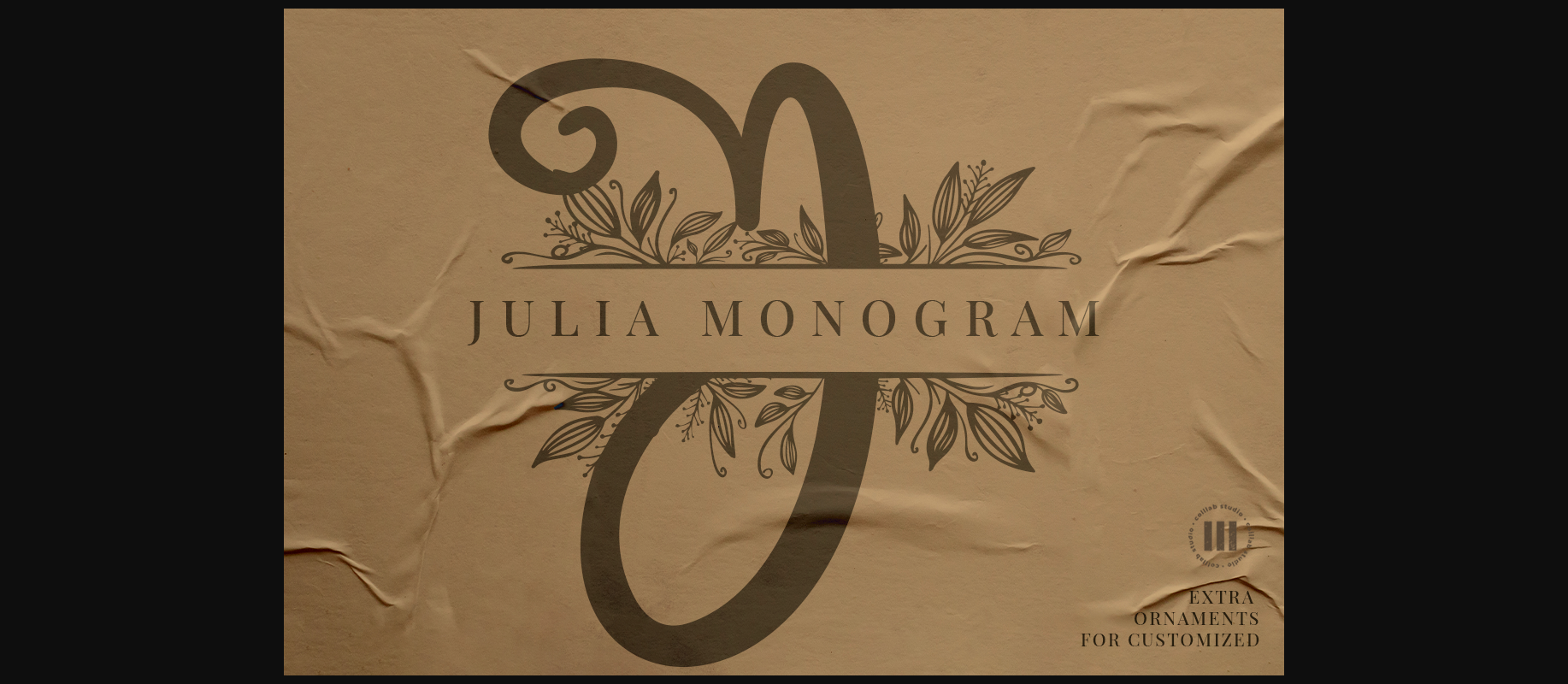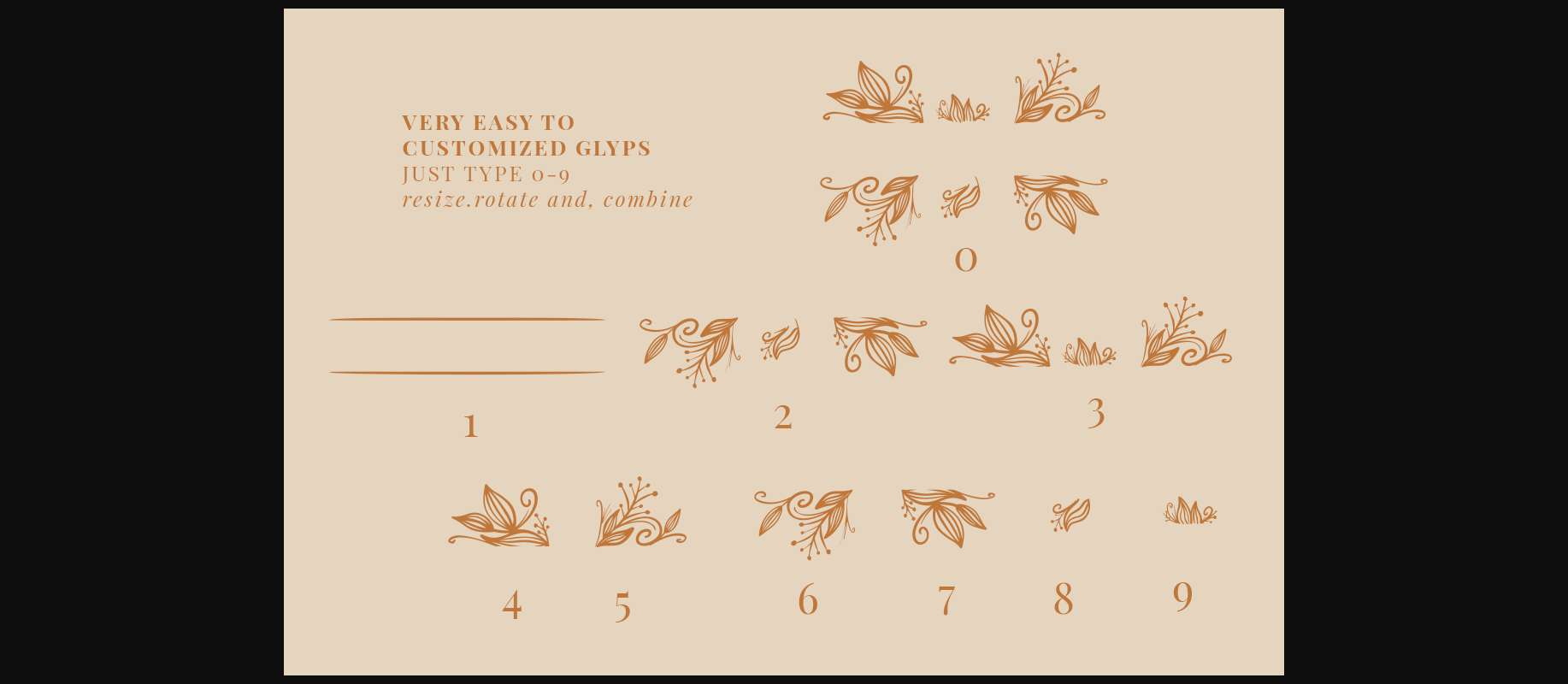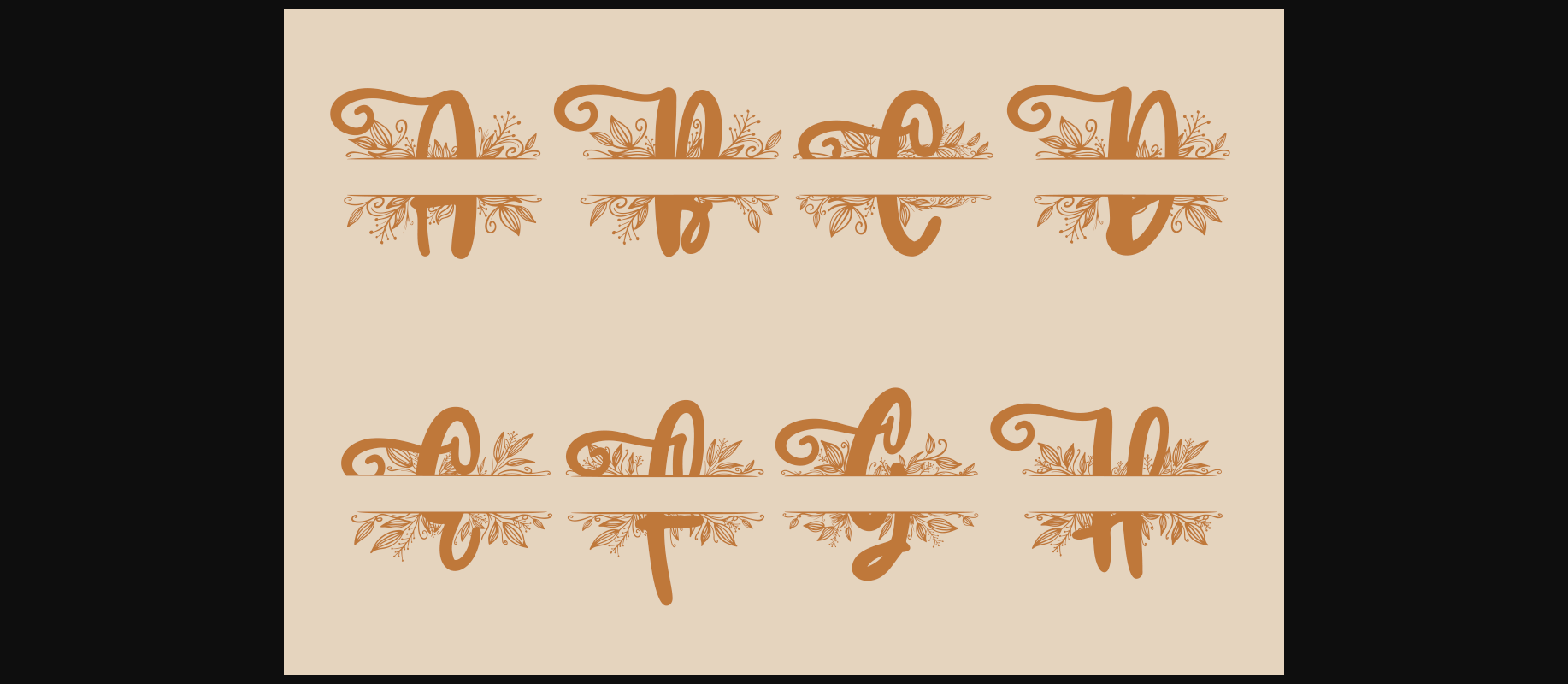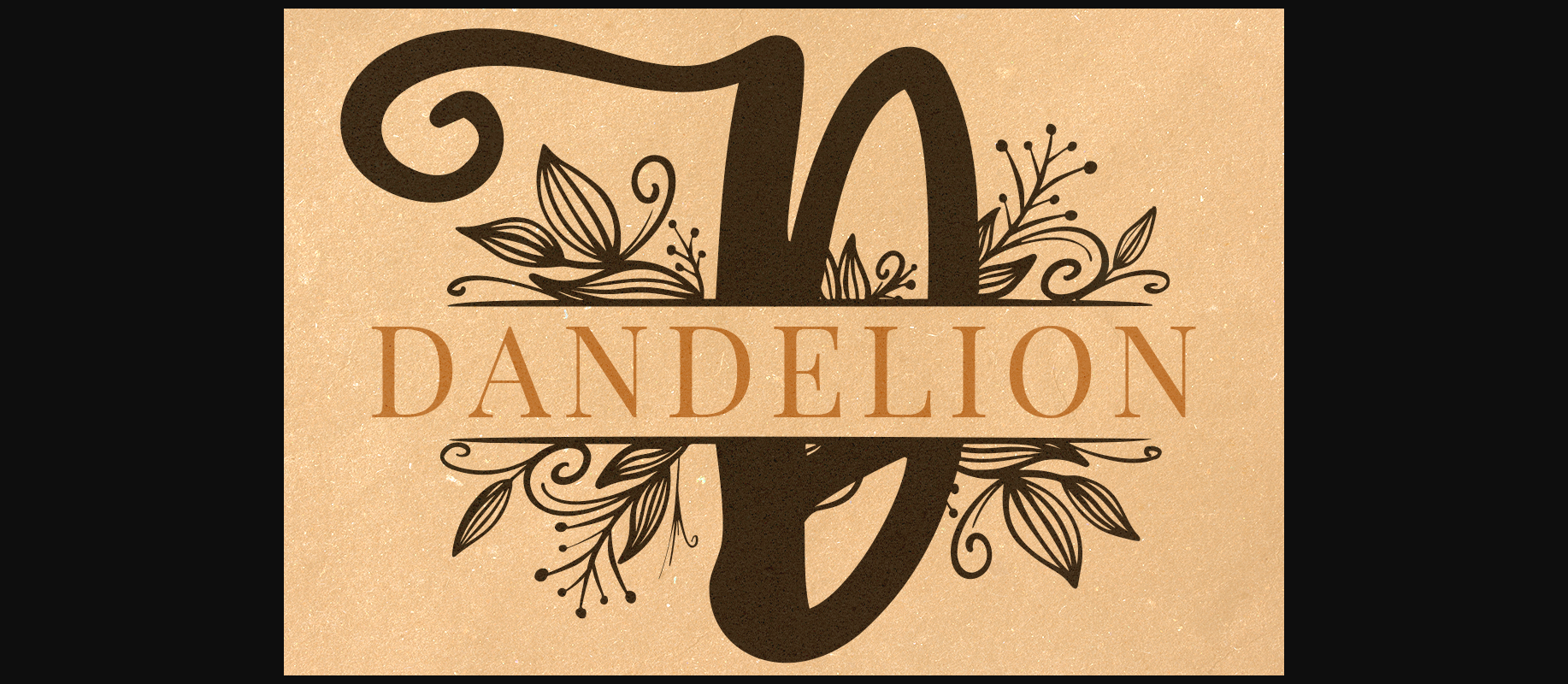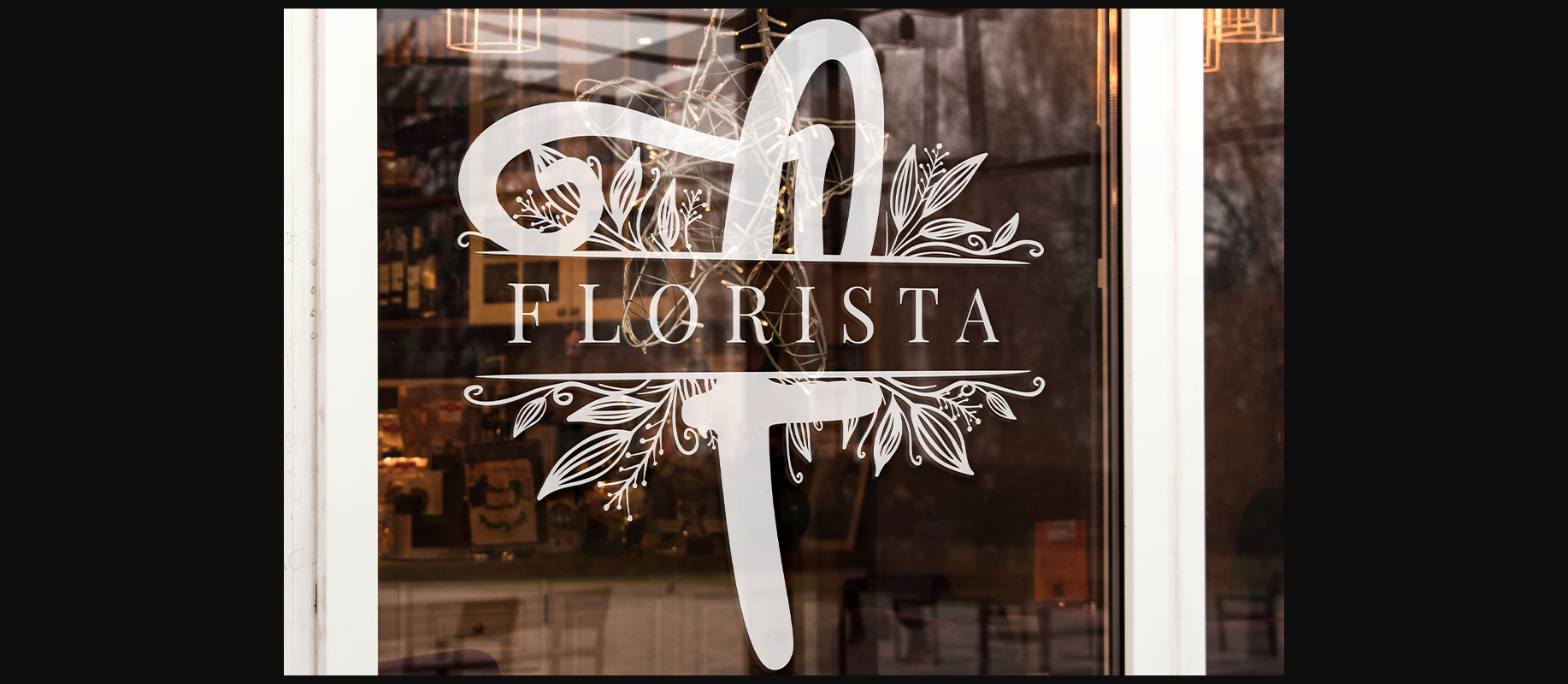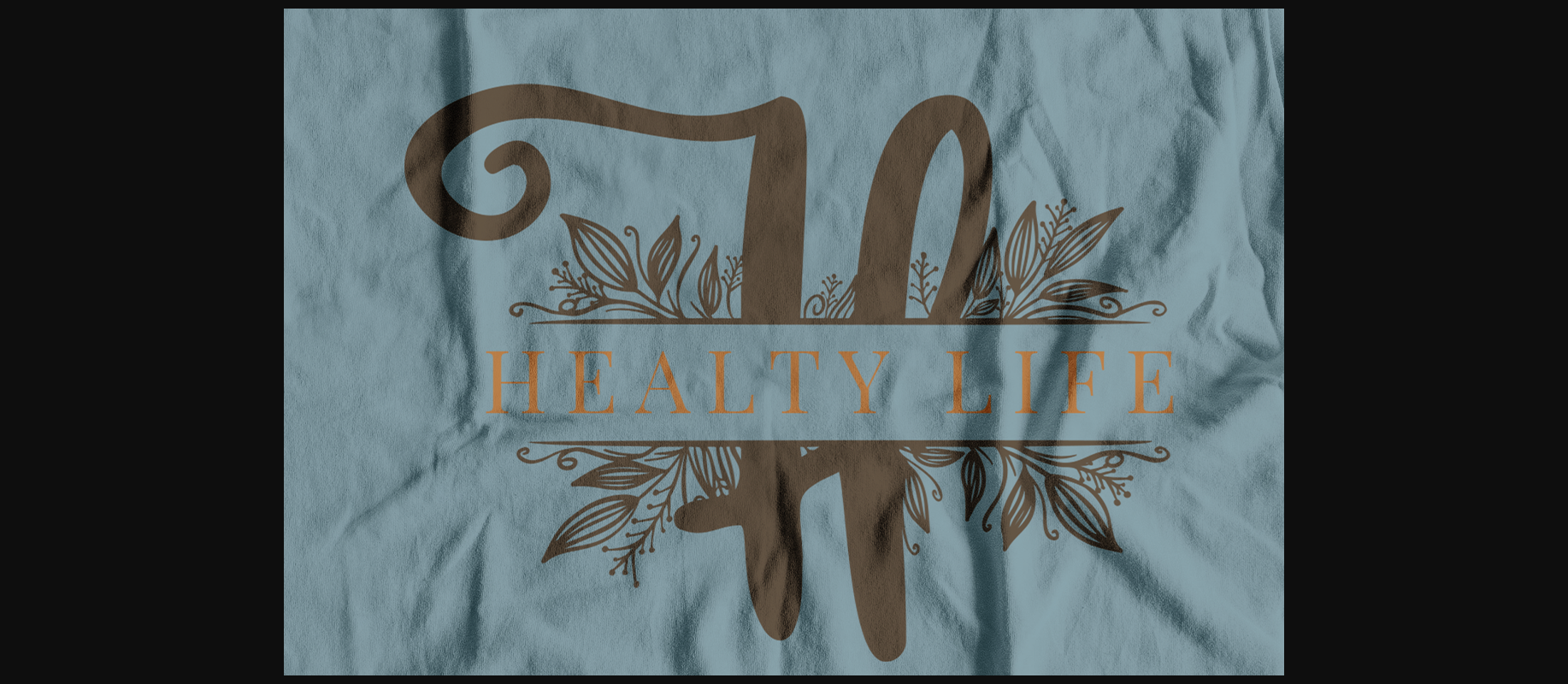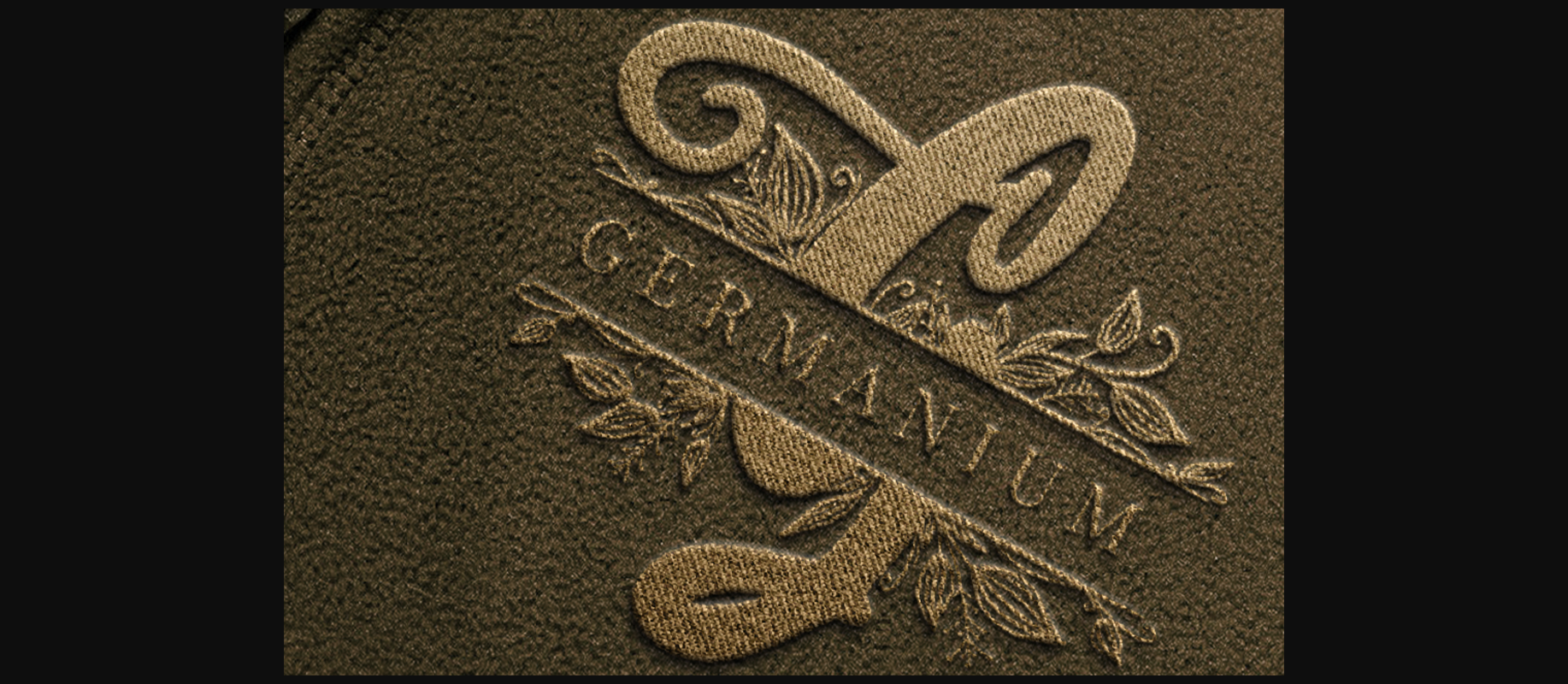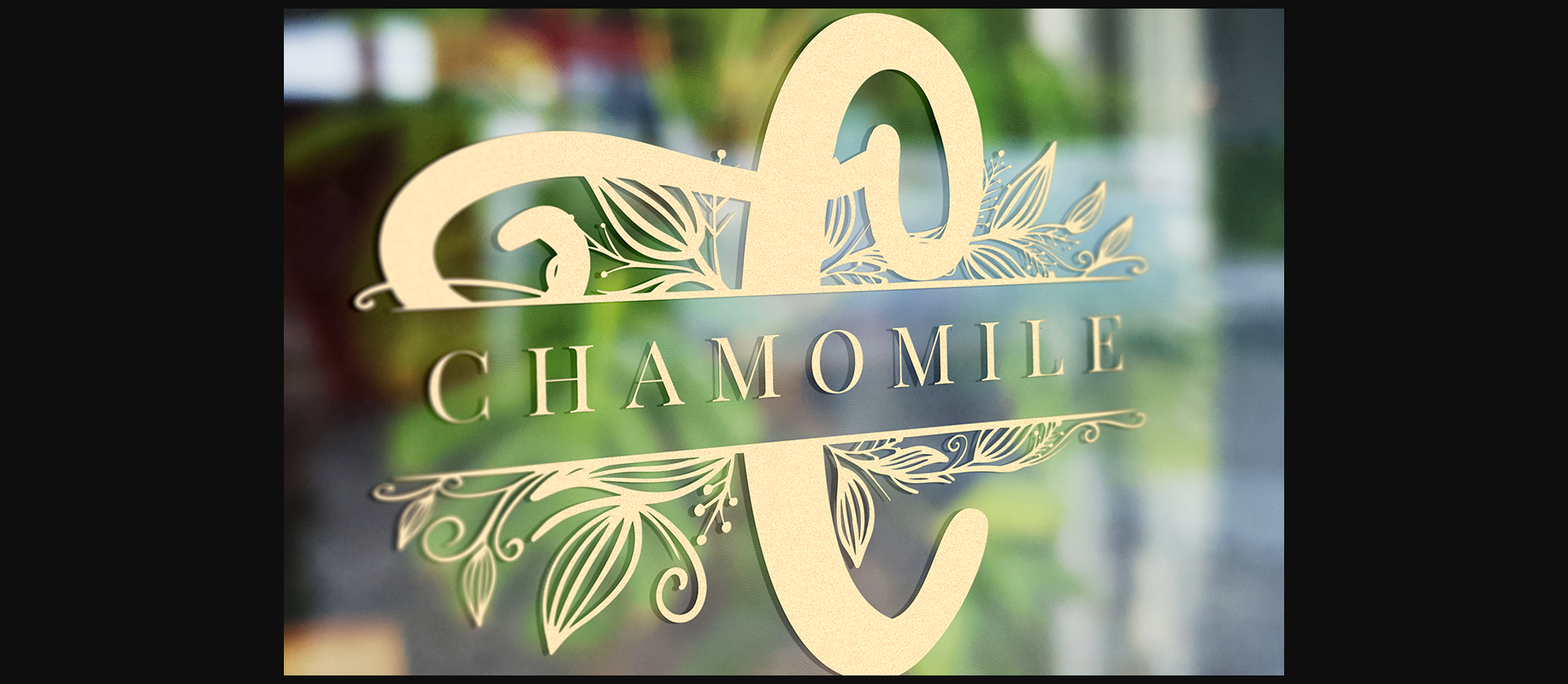
About Julia Monogram Font
Julia Monogram is a lovely decorative font.Get inspired by its lovely feel and use it to create gorgeous wedding invitations, beautiful stationary art, eye-catching social media posts, and cute greeting cards.